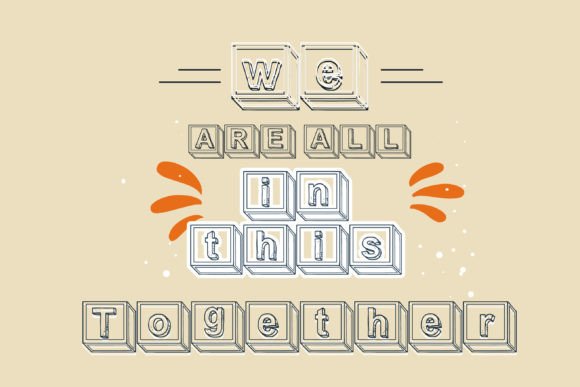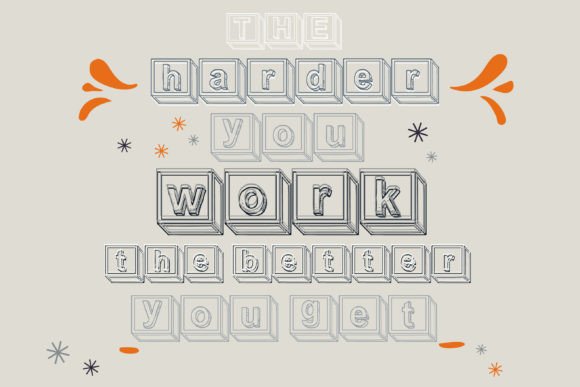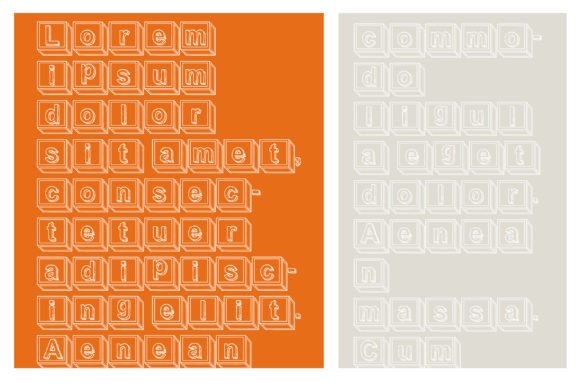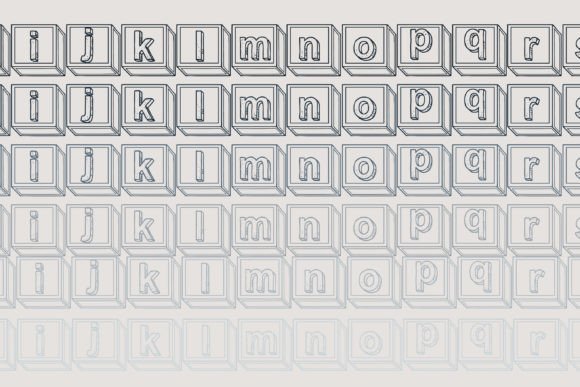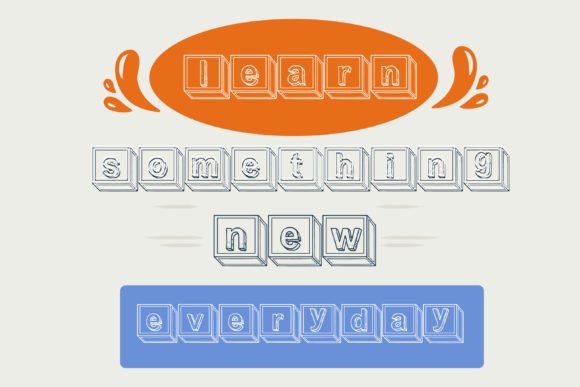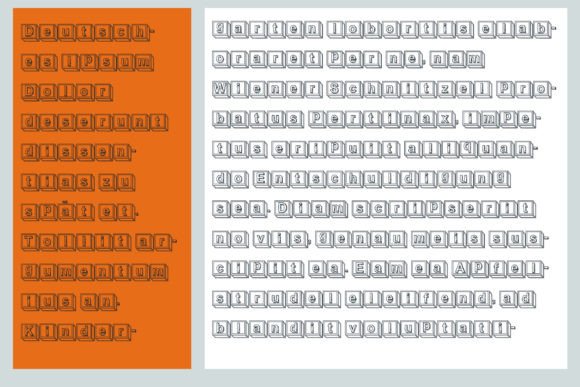
Introducing Blocks Font: The Ultimate Playful Typeface for Modern Designs
Are you tired of using the same old fonts in your designs? Do you want to add a touch of fun and modernity to your projects? Look no further than Blocks Font, a vibrant and youthful typeface that’s sure to take your designs to the next level. With its creatively arranged letters in charming 3D blocks, Blocks Font is the perfect way to infuse your text with a lively and engaging touch.
What is Blocks Font?
Blocks Font is a unique and playful typeface that features letters arranged in 3D blocks, giving it a fun and modern look. The font is designed to add a touch of whimsy and creativity to your designs, making it perfect for projects that require a youthful and energetic feel. Whether you’re crafting invitations, posters, or social media graphics, Blocks Font is the perfect choice.
Key Features of Blocks Font
- Unique 3D Block Design: The font features creatively arranged letters in charming 3D blocks, adding a touch of fun and modernity to your designs.
- Vibrant and Youthful: Blocks Font is perfect for projects that require a youthful and energetic feel, such as invitations, posters, and social media graphics.
- Highly Versatile: The font can be used for a wide range of projects, from digital designs to print materials.
- Easily Customizable: Blocks Font can be easily customized to fit your design needs, including adjusting font size, color, and style.
Uses of Blocks Font
Blocks Font is a highly versatile typeface that can be used for a wide range of projects, including:
- Invitations: Add a touch of fun and modernity to your invitations, making them stand out from the crowd.
- Posters: Create eye-catching posters that grab attention with Blocks Font’s unique 3D block design.
- Social Media Graphics: Infuse your social media graphics with a lively and engaging touch, perfect for grabbing the attention of your audience.
- Digital Designs: Use Blocks Font in your digital designs, such as website headers, email newsletters, and more.
- Print Materials: Blocks Font can also be used for print materials, such as brochures, flyers, and business cards.
Benefits of Using Blocks Font
Using Blocks Font in your designs offers a range of benefits, including:
- Increased Engagement: The font’s playful and modern design is sure to grab the attention of your audience, increasing engagement and interaction.
- Improved Brand Image: Blocks Font can help to create a youthful and energetic brand image, perfect for businesses and brands that want to appeal to a younger audience.
- Versatility: The font can be used for a wide range of projects, making it a valuable addition to your design toolkit.
Tips for Using Blocks Font
Here are some tips for getting the most out of Blocks Font:
- Use it Sparingly: Blocks Font is a bold and playful font, so use it sparingly to avoid overwhelming your design.
- Experiment with Colors: The font looks great in a range of colors, so experiment with different colors to find the perfect fit for your design.
- Pair it with Other Fonts: Blocks Font can be paired with other fonts to create a unique and interesting design.
Blocks Font is a vibrant and youthful typeface that’s perfect for adding a playful twist to your designs. With its unique 3D block design and highly versatile nature, it’s the perfect choice for a wide range of projects. Whether you’re a designer, crafter, or business owner, Blocks Font is sure to take your designs to the next level.